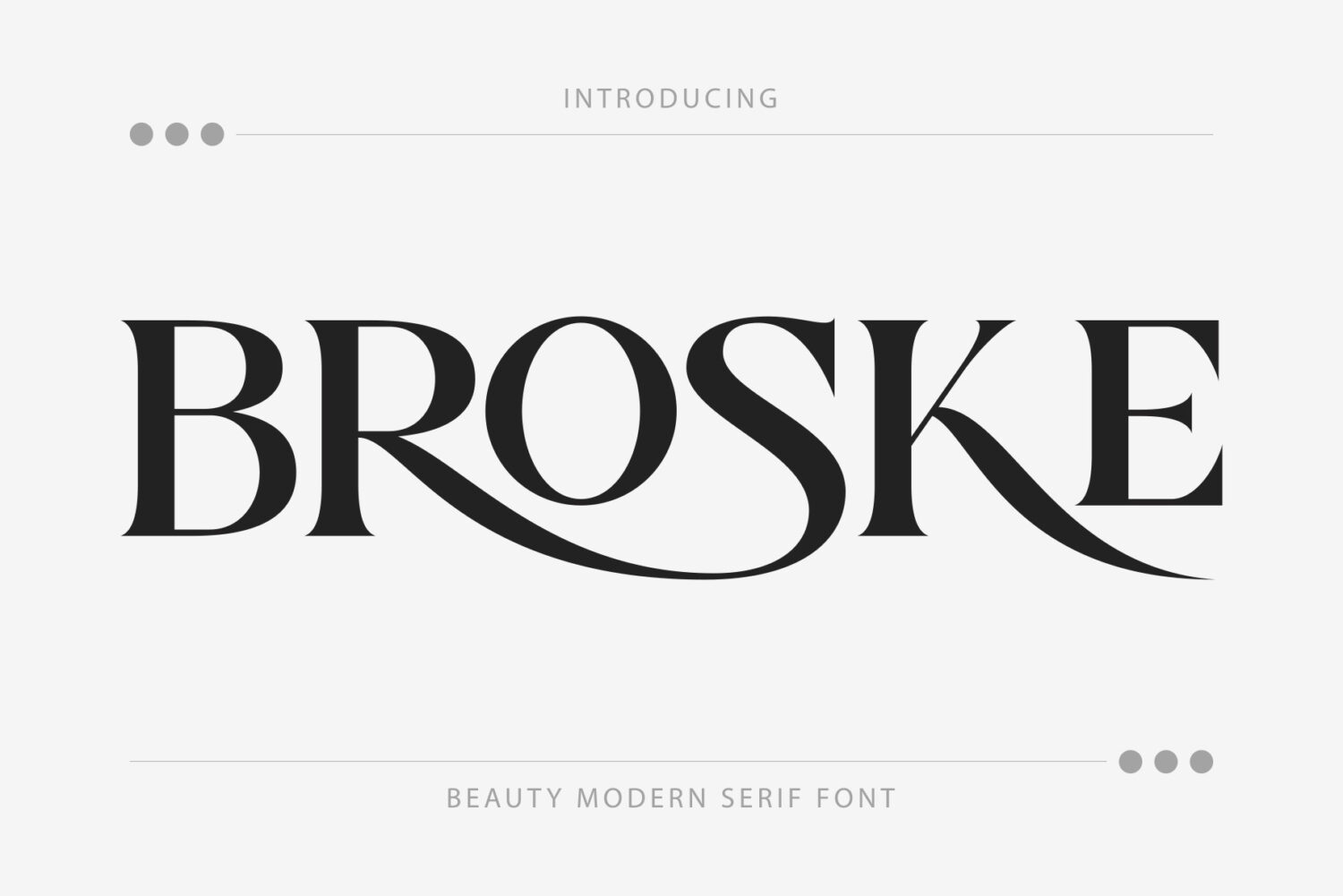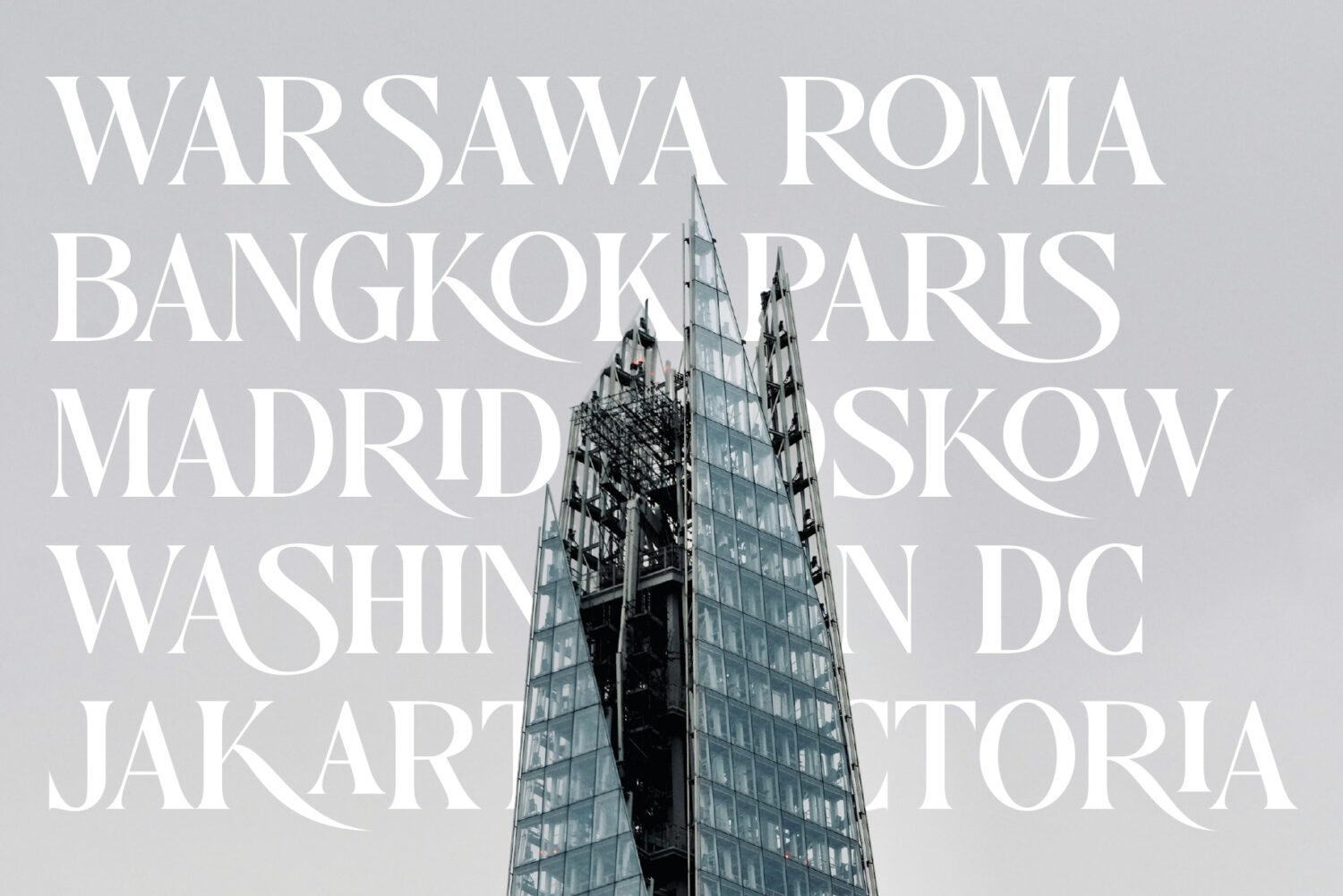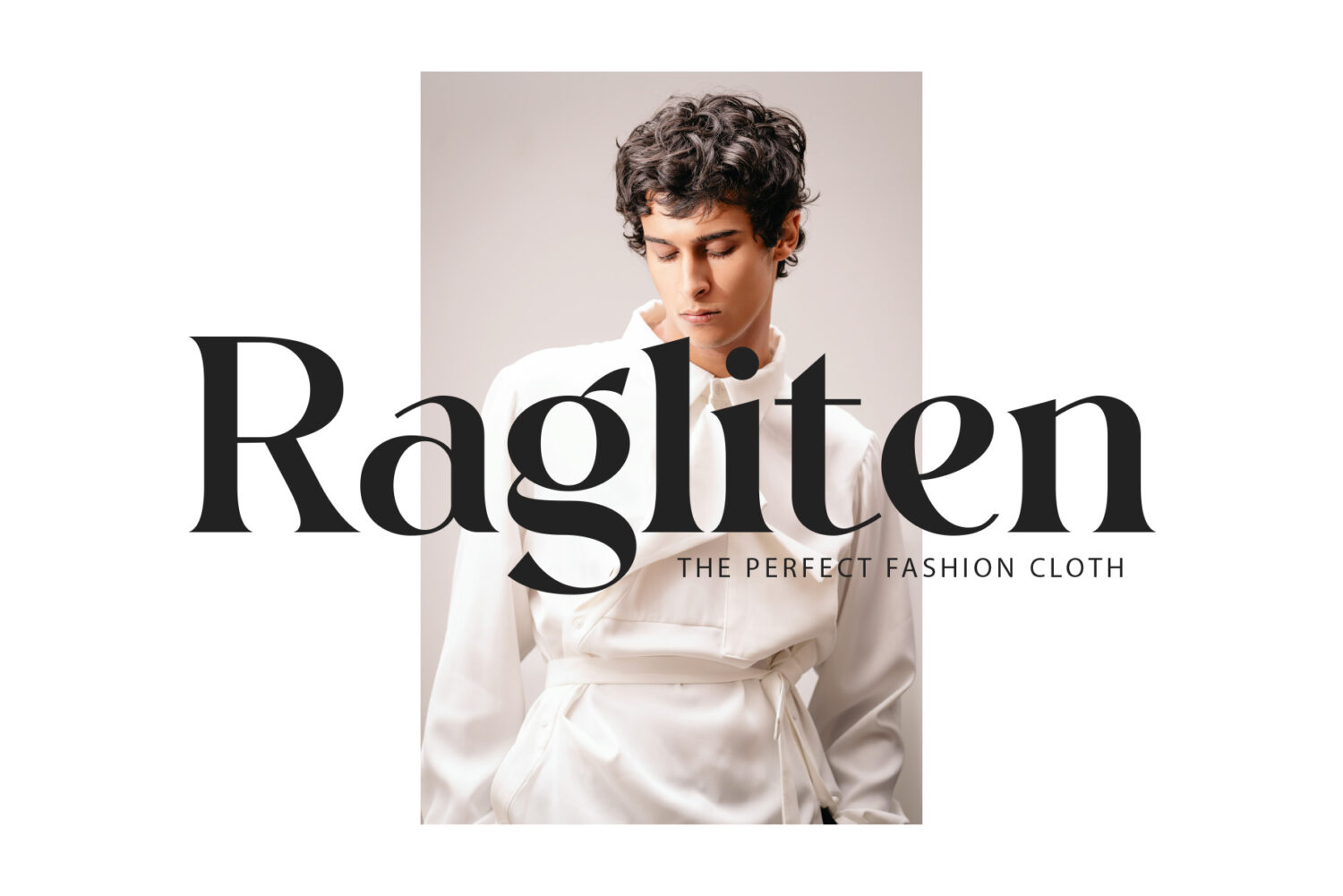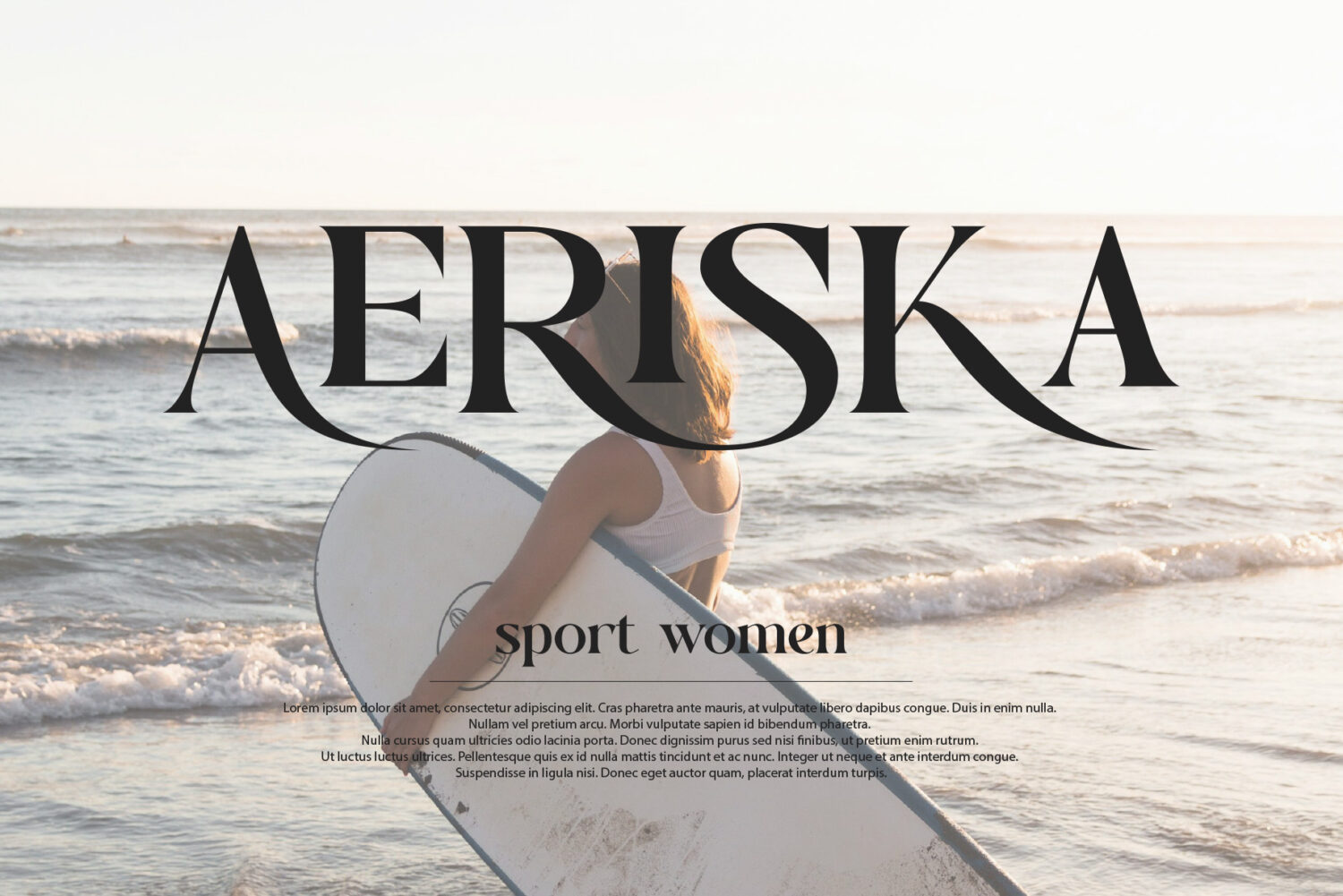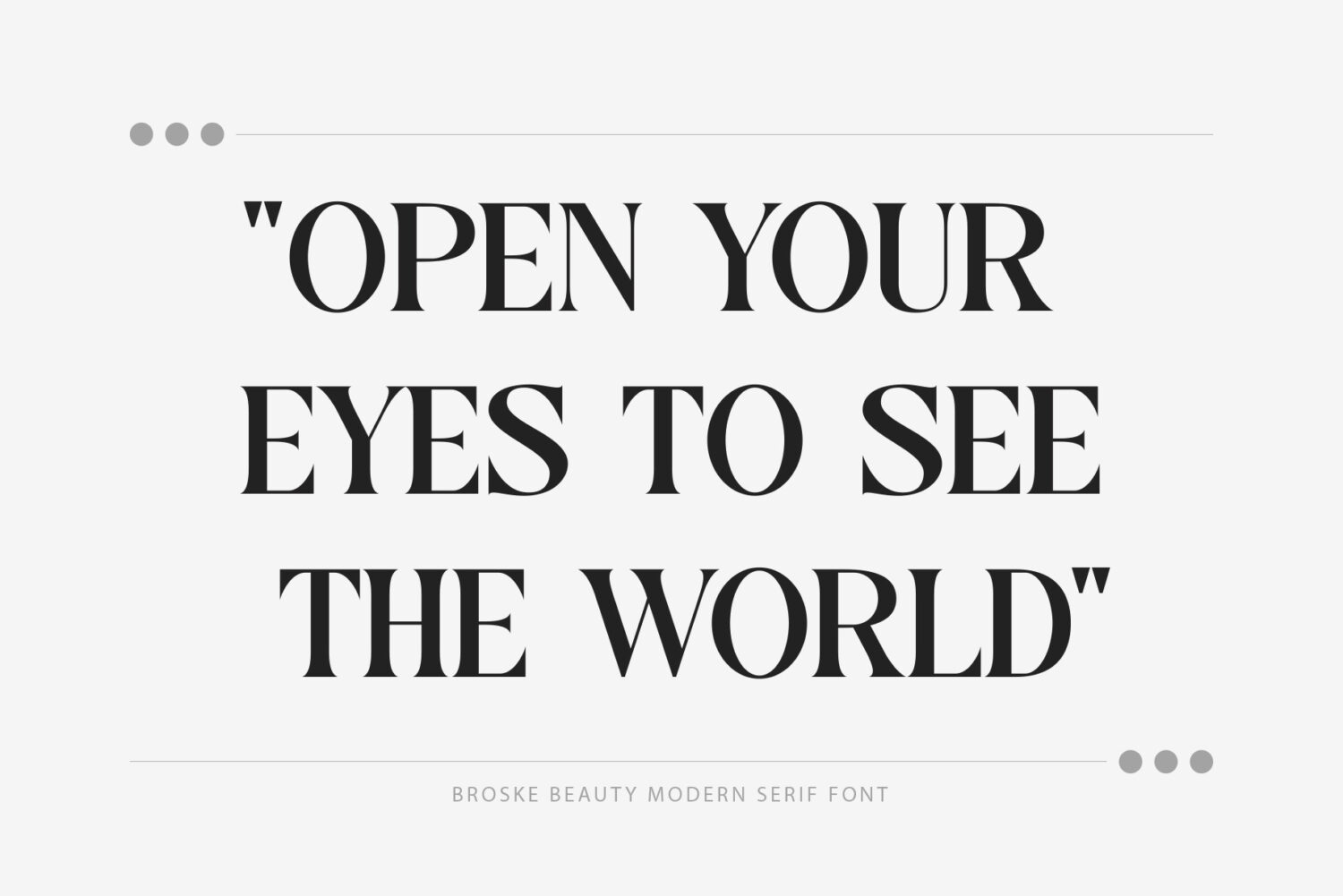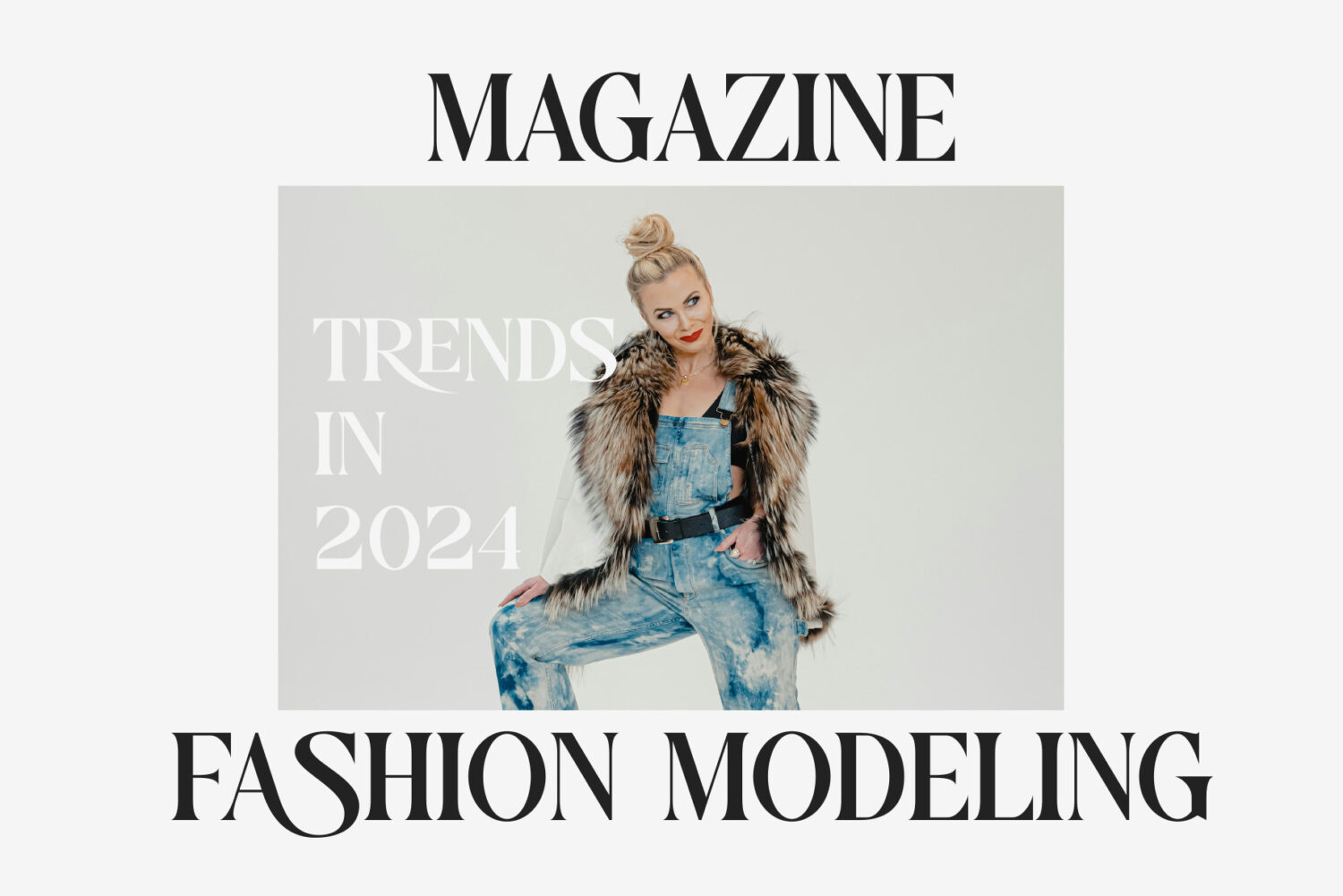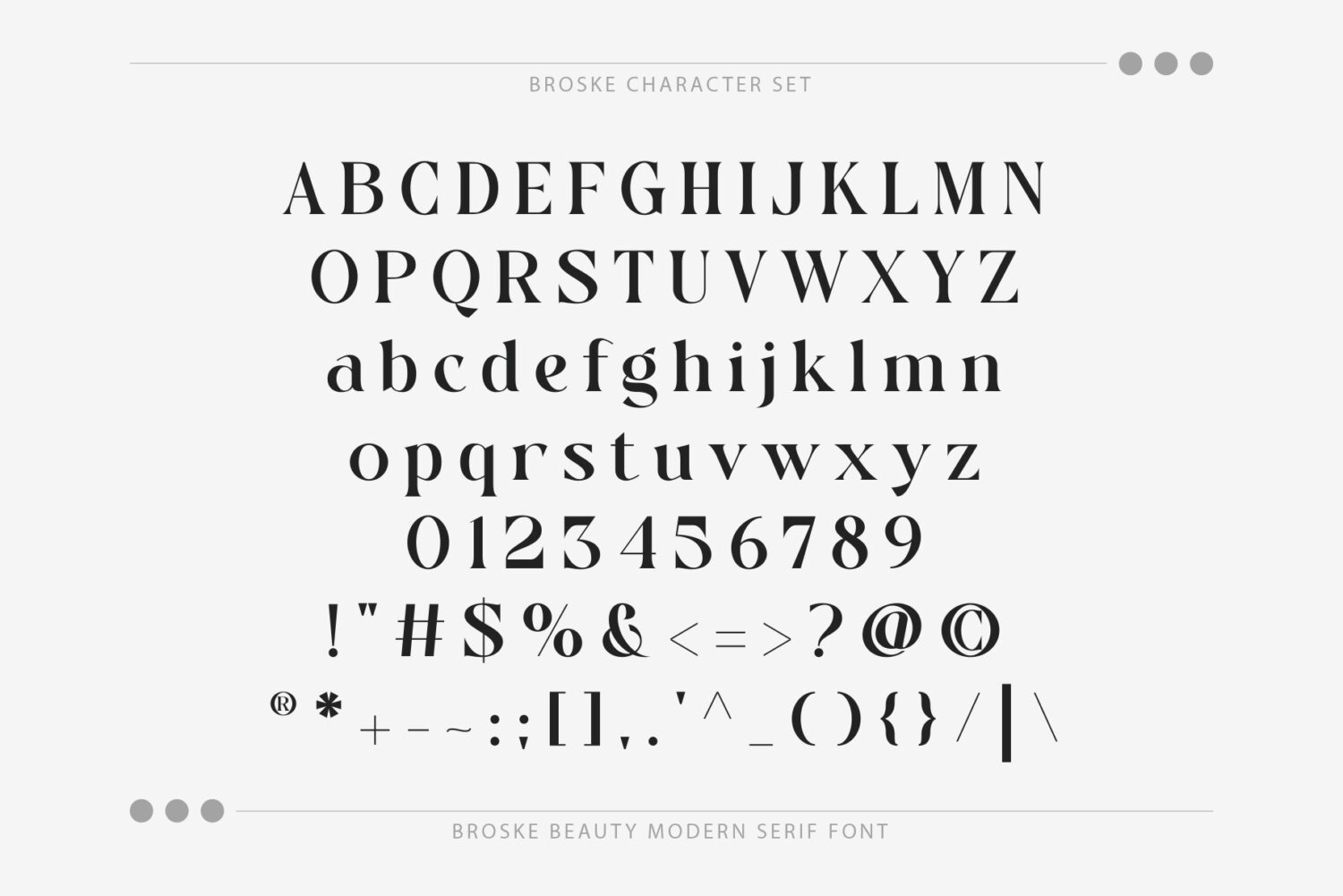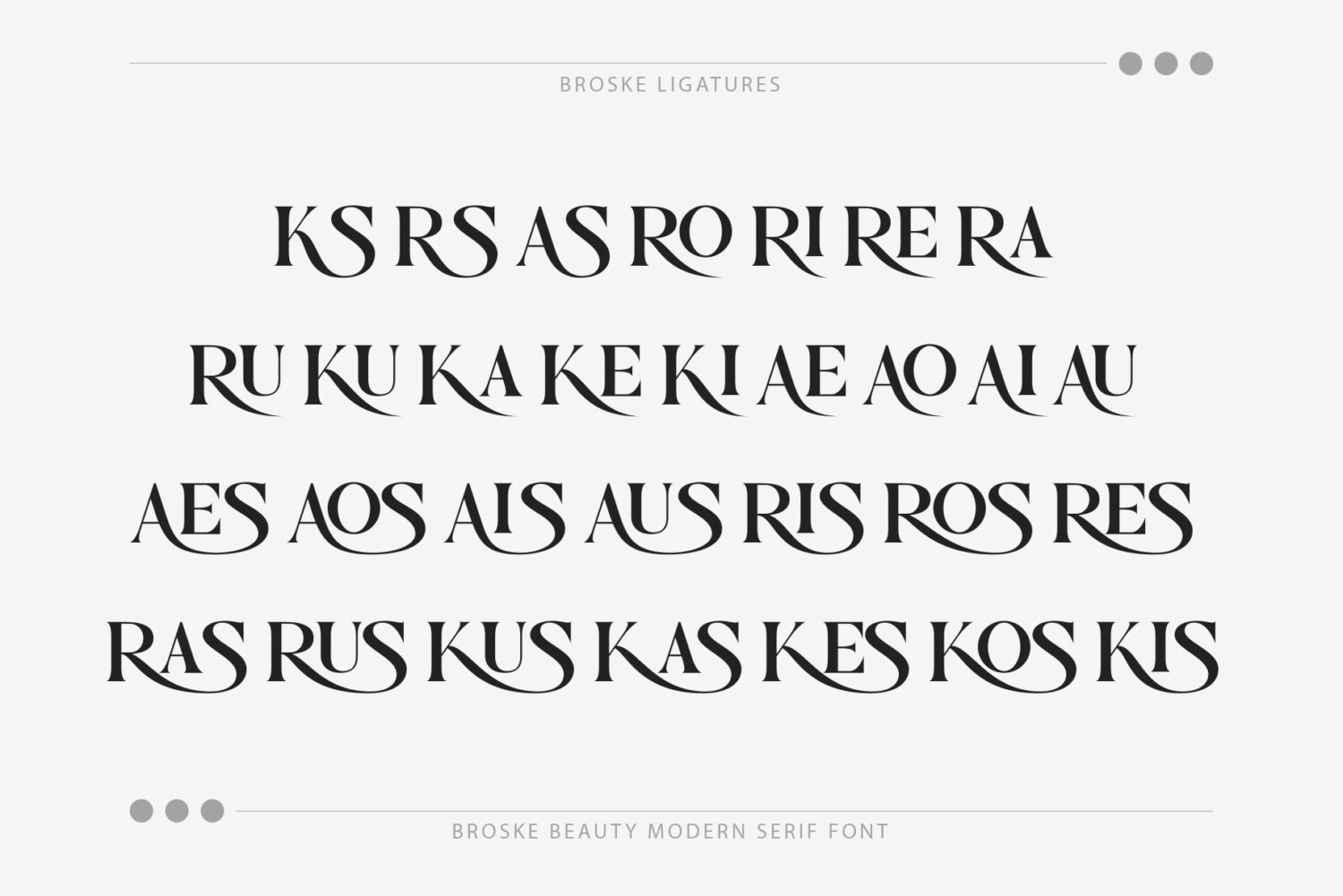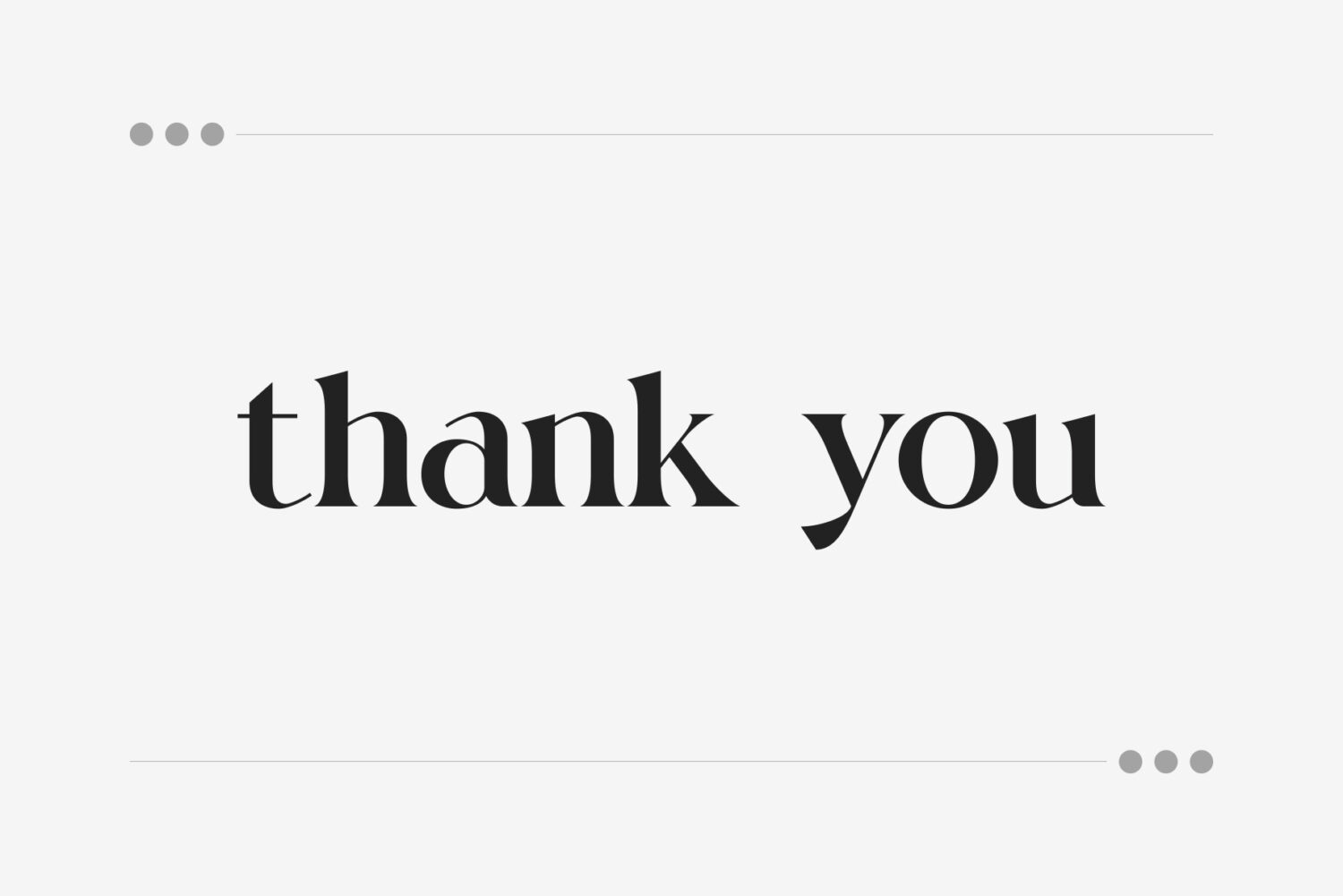
Introducing **Broske** A beautiful and elegant serif look. With its modern and minimalist appearance, Broske brings a luxurious, classy and clean impression to the projects you need such as websites, modern logos, branding identities, social media quotes, wedding stationery, magazines and various other needs!
Broske features unique and classy capital letters A to Z and is equipped with a unique binding so that Broske is a beautiful font that can be adapted to various projects and jobs you want.